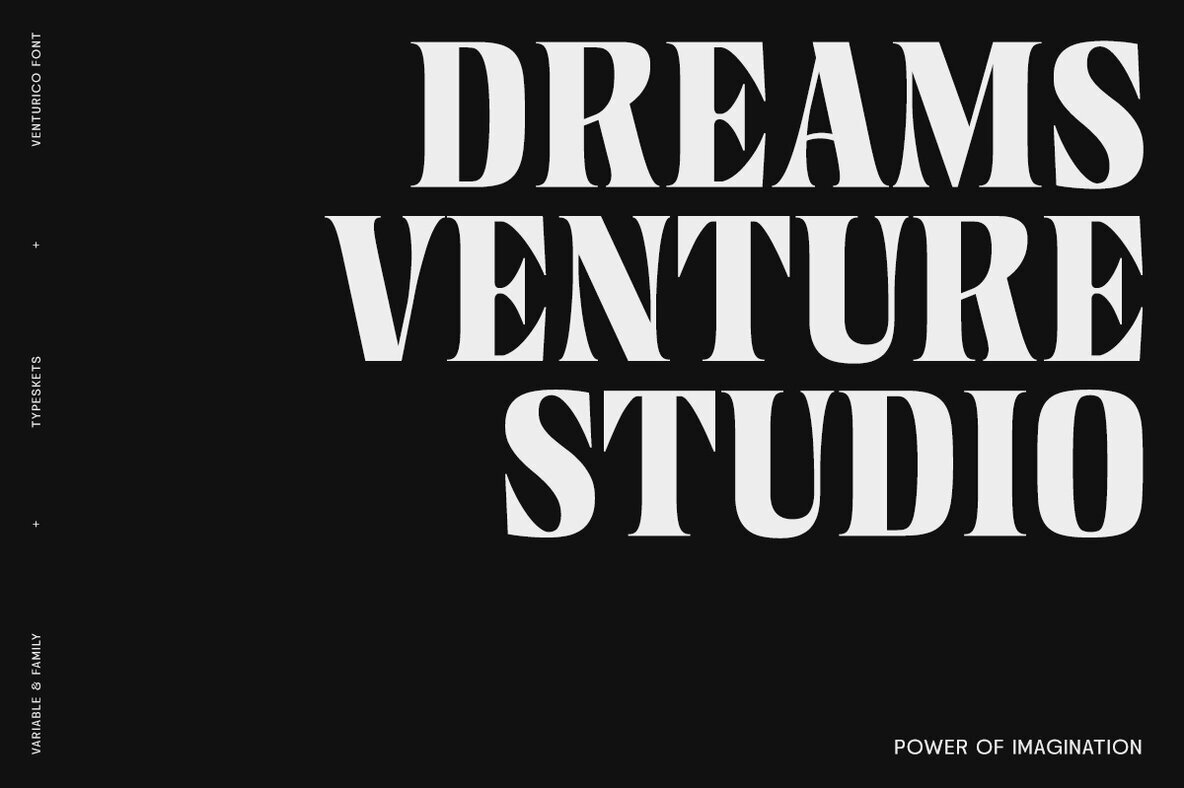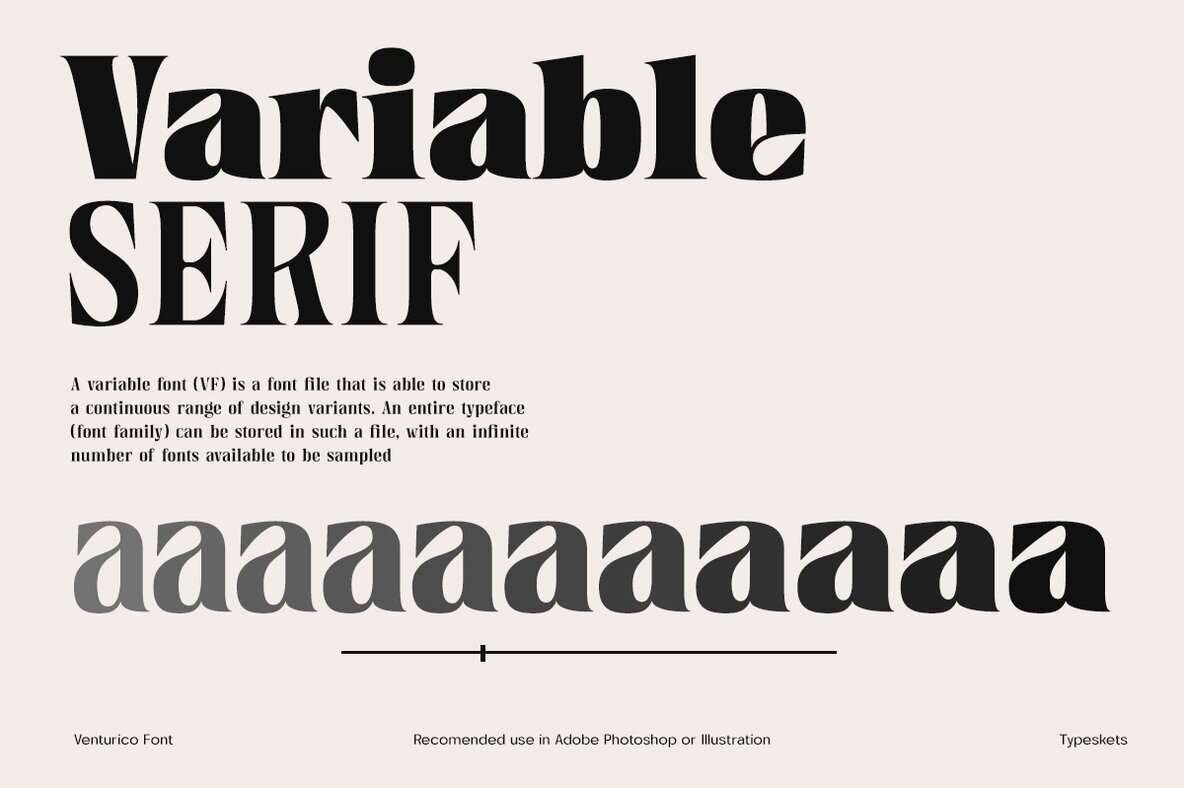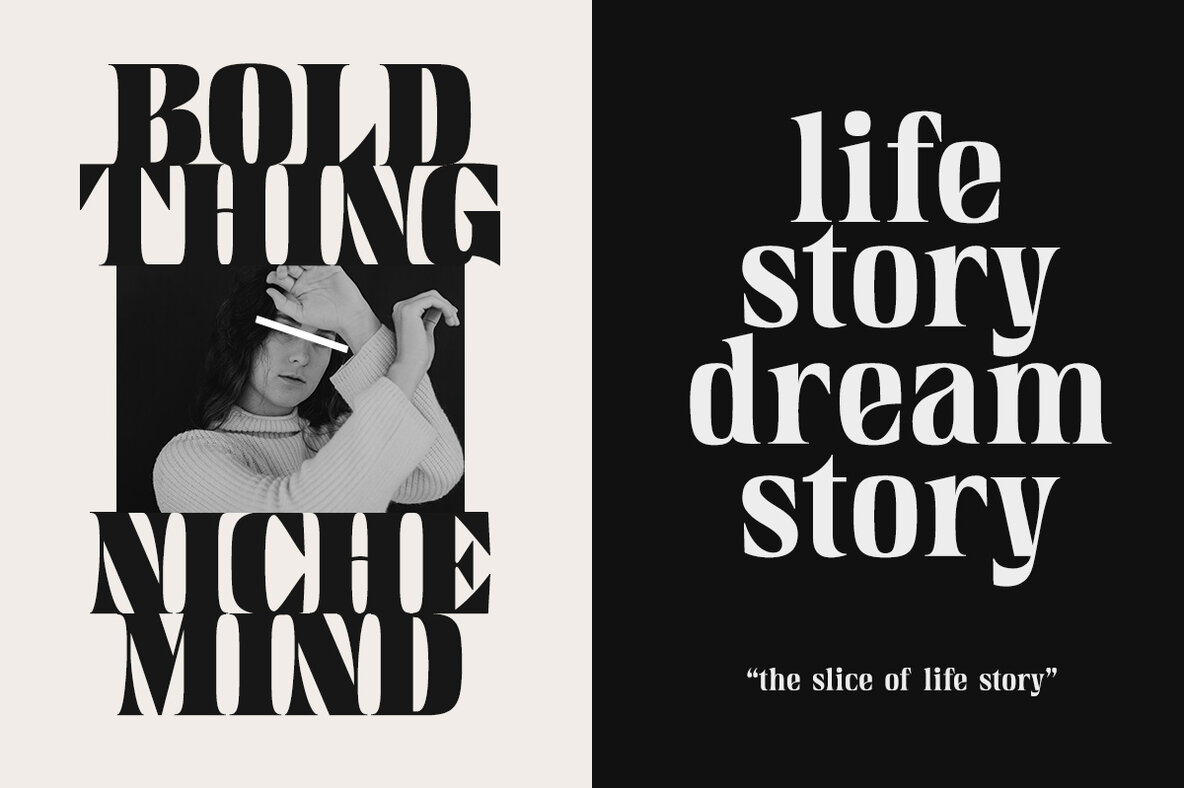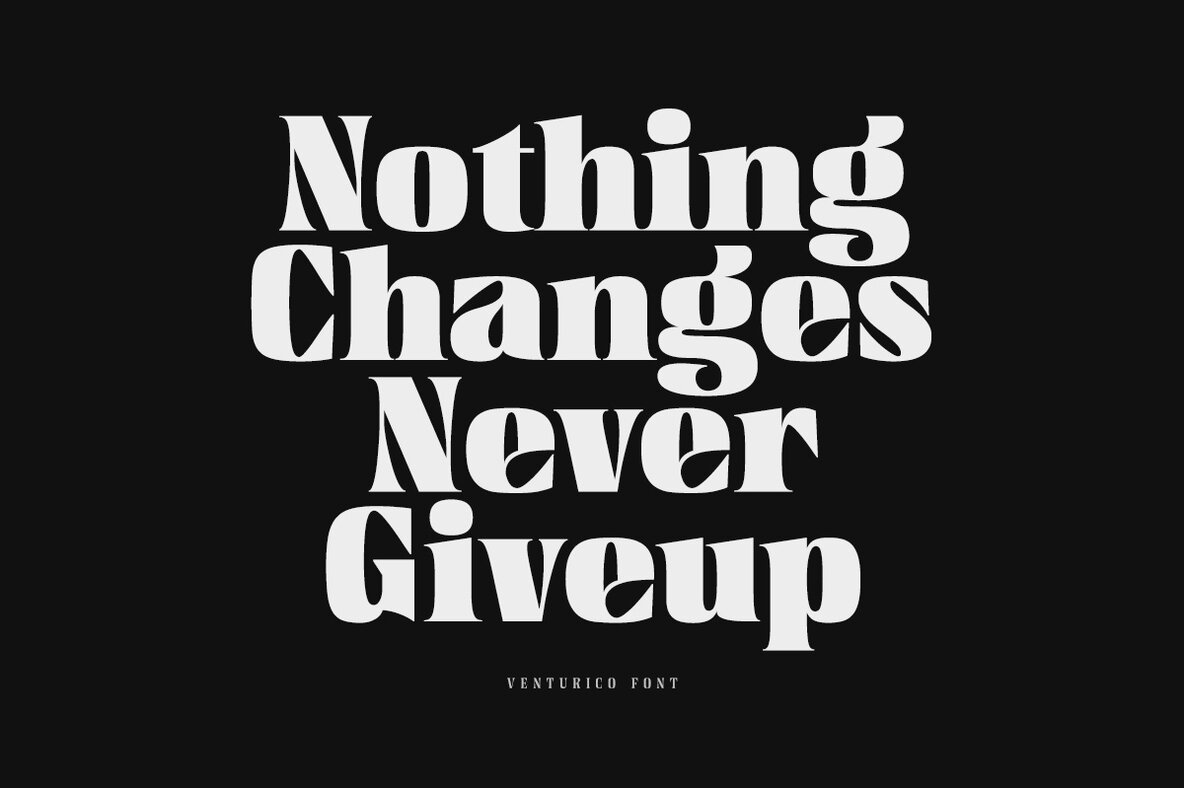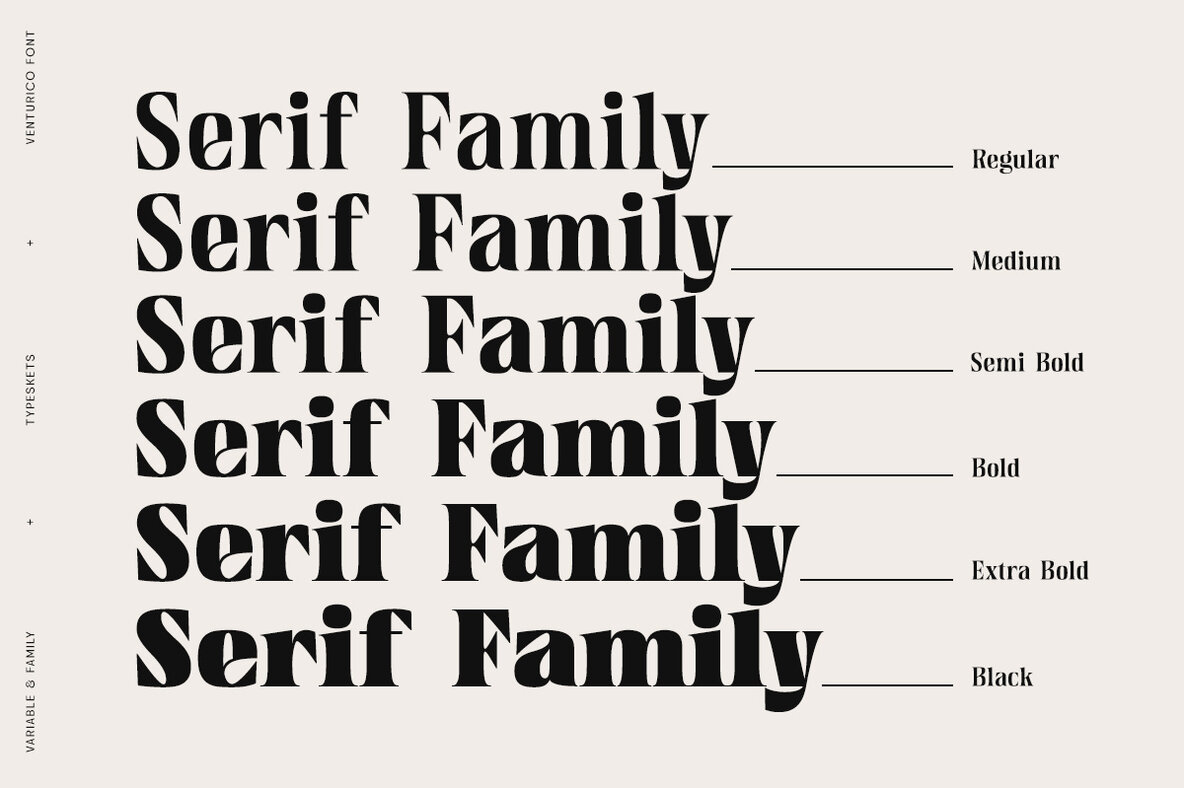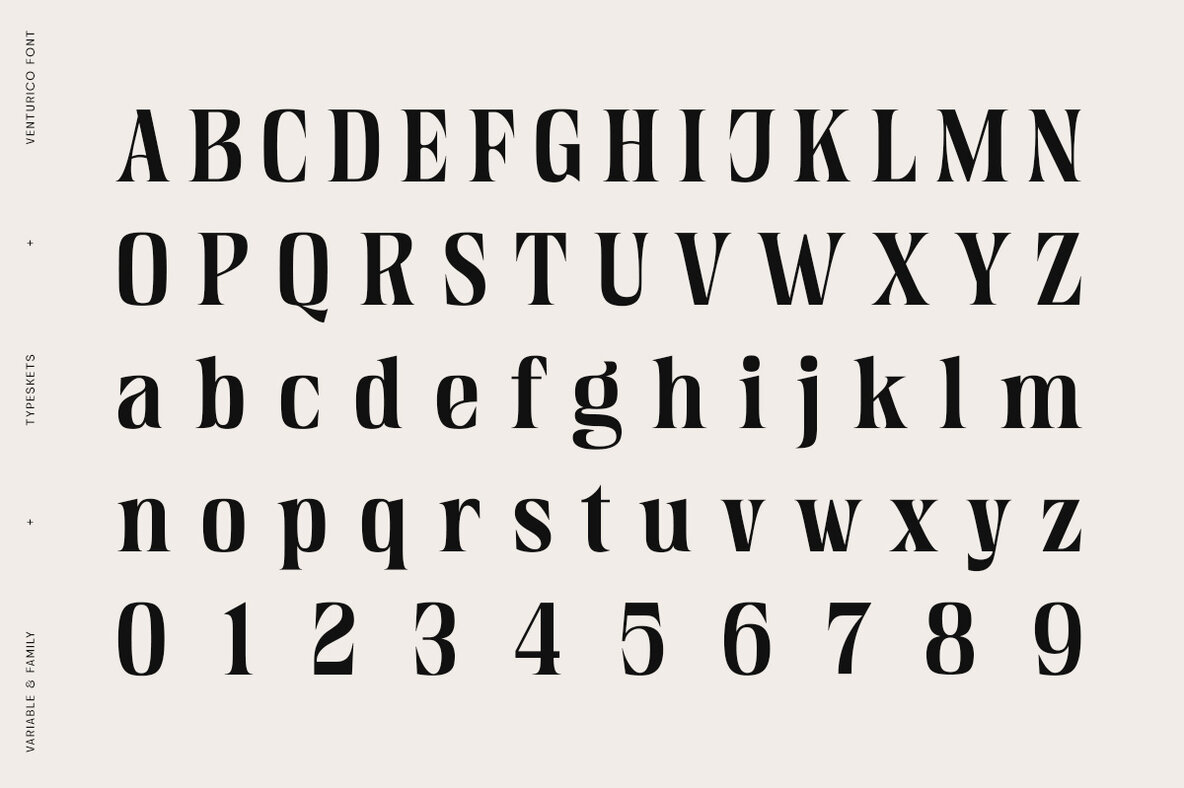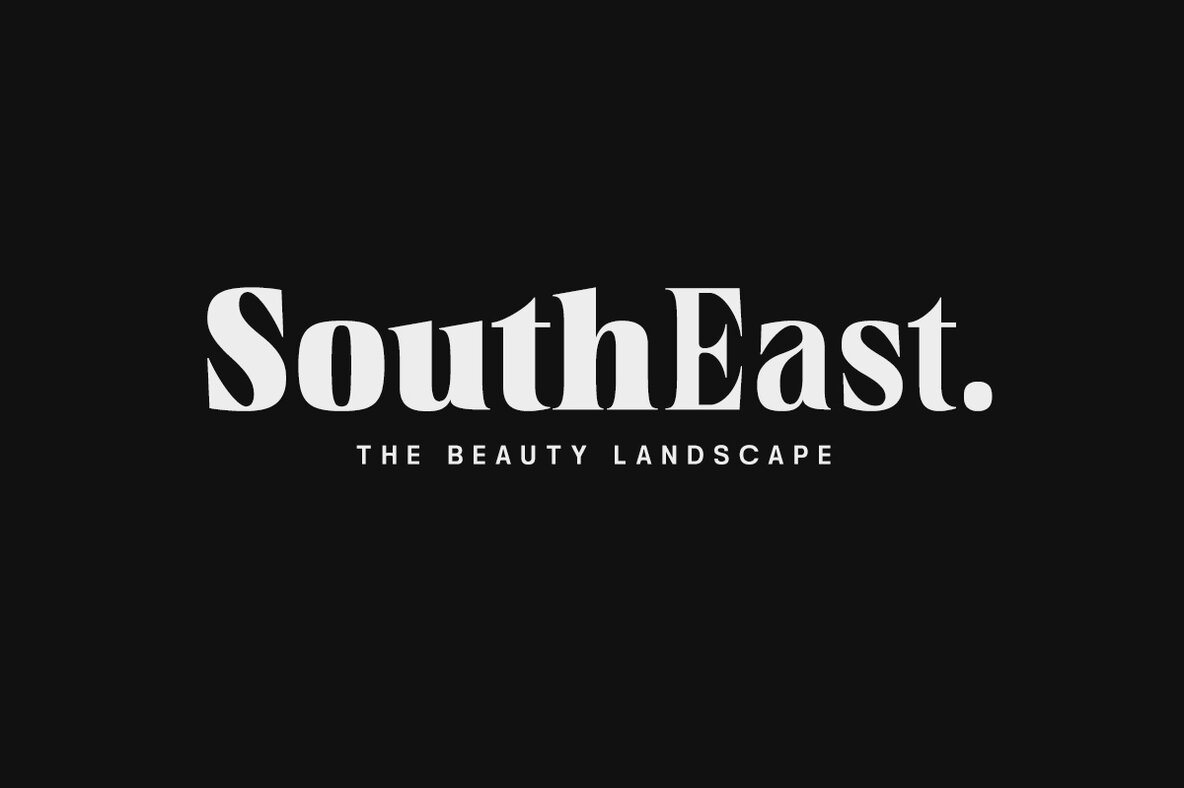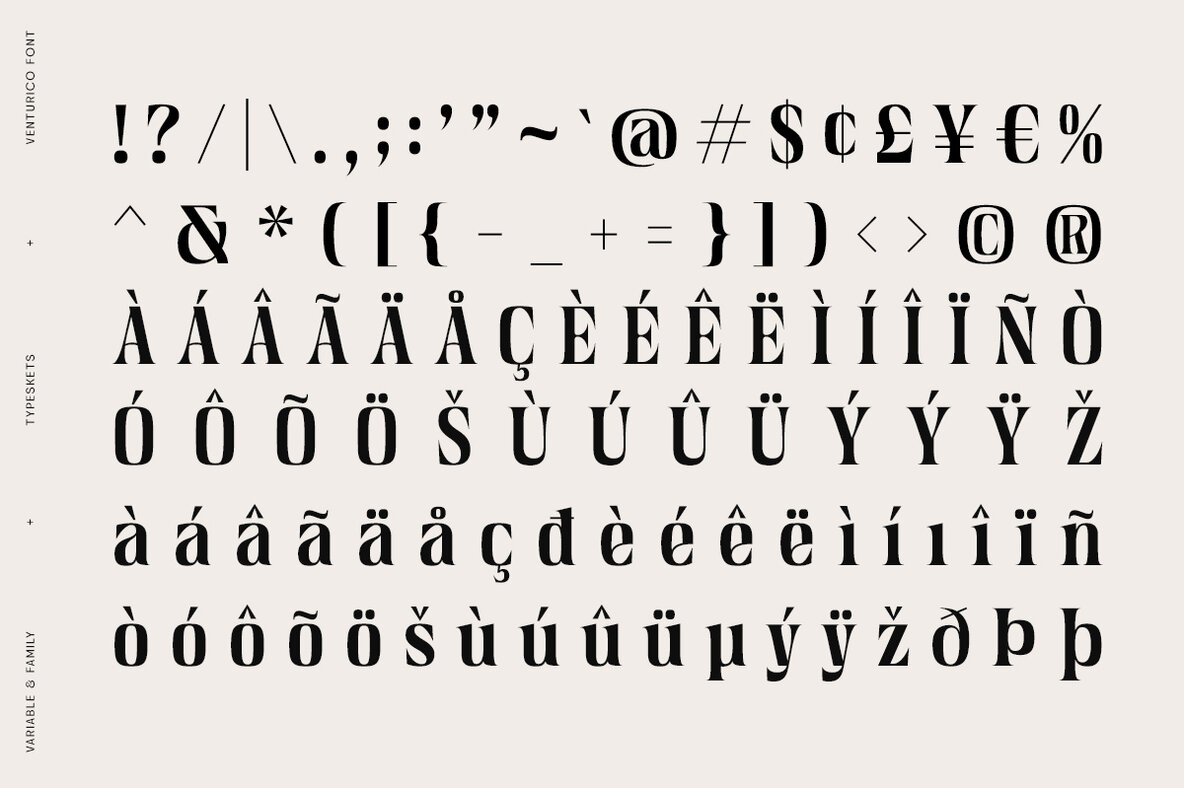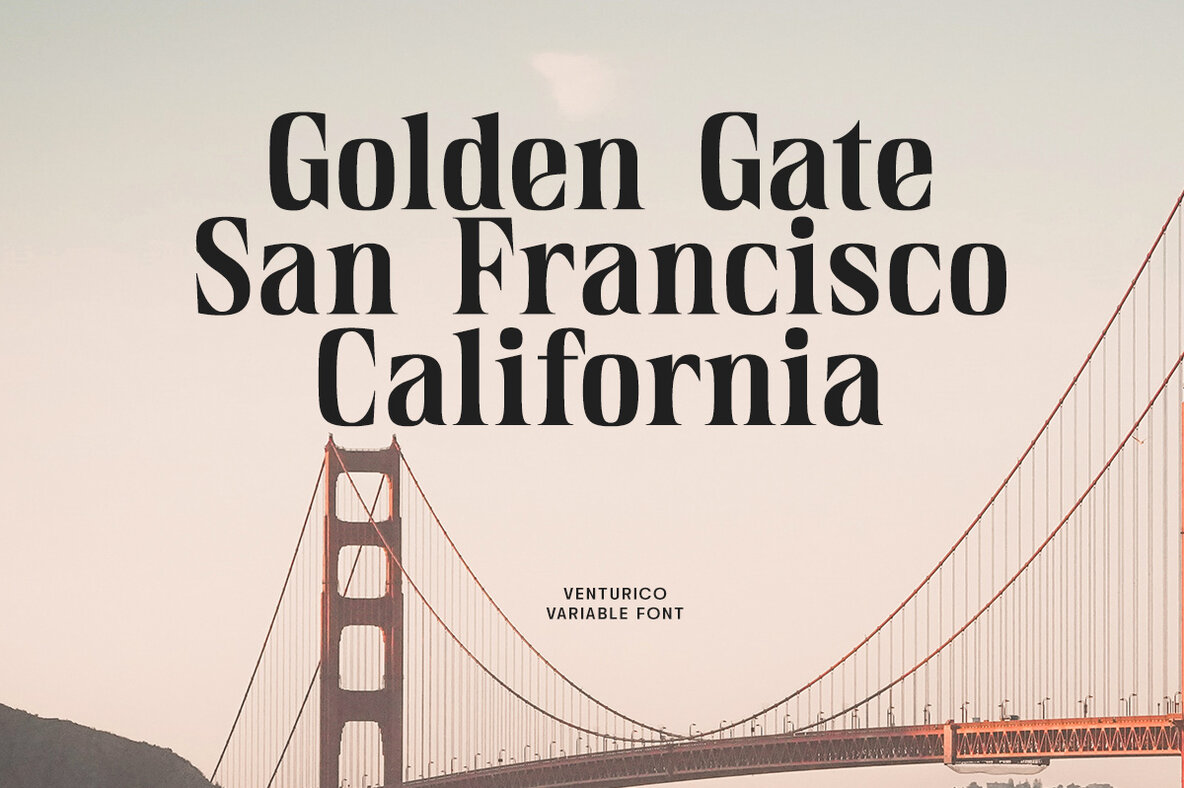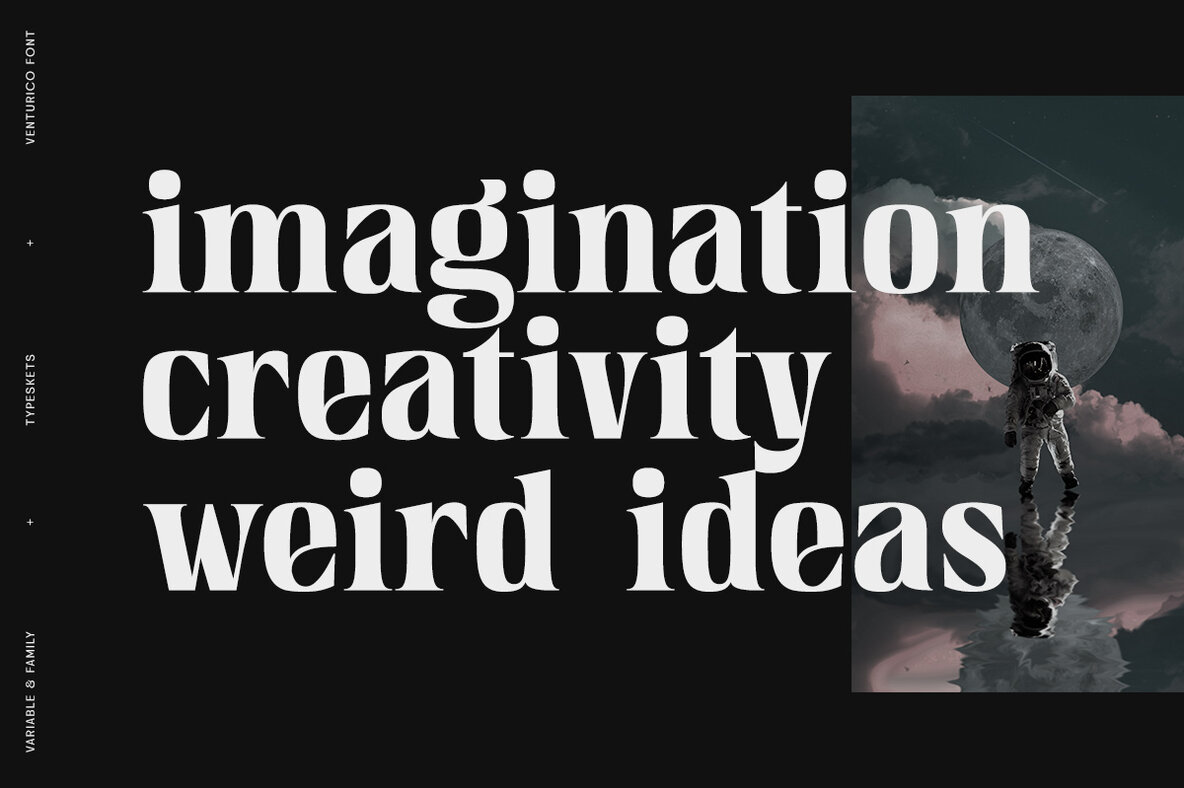
Venturico Font
Venturico is a versatile variable serif font family featuring six weights. Its design captures the timeless elegance of classic serif fonts while showcasing distinctive characters suitable for various creative designs. Whether you're working on posters, headlines, book covers, or typography projects, Venturico provides a refined and unique style that can enhance your visual work.
With its blend of elegance and character, Venturico is an excellent addition to any designer's font collection. Its range of weights offers flexibility, making it an ideal choice for diverse design applications. Consider incorporating Venturico into your design projects to add a touch of sophistication and uniqueness.